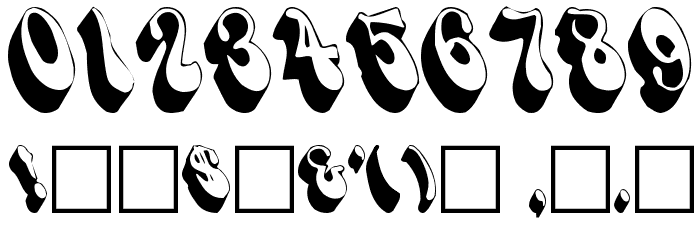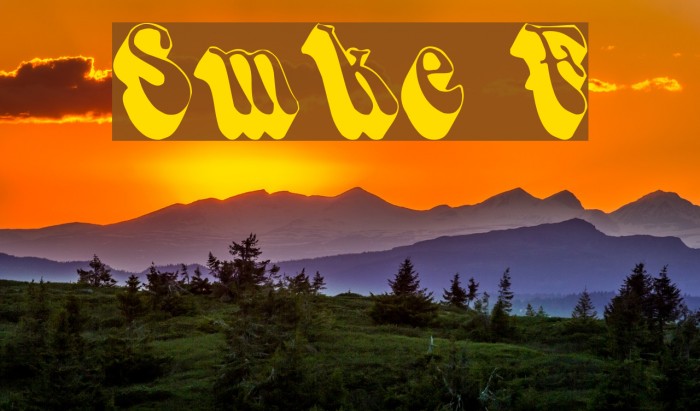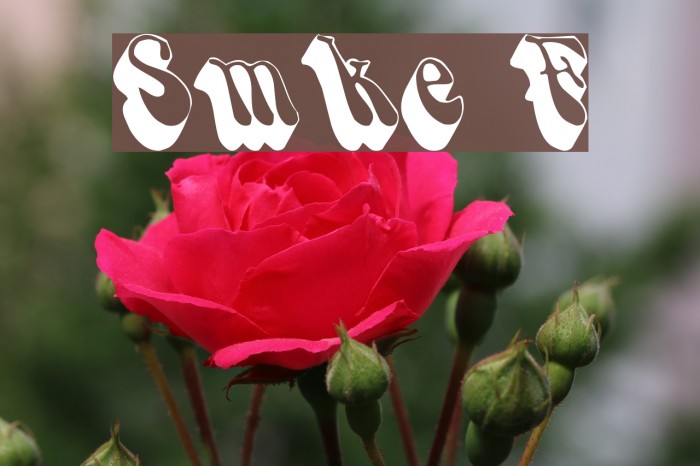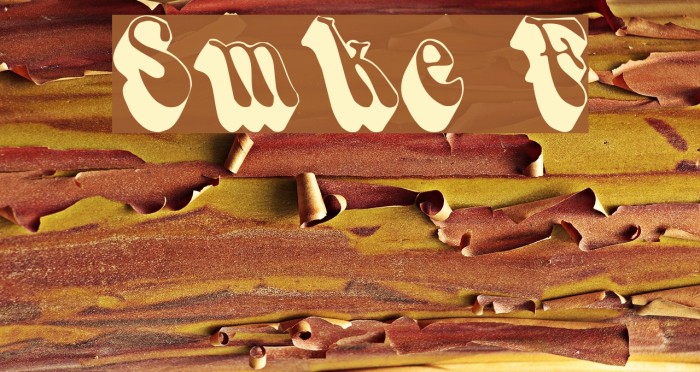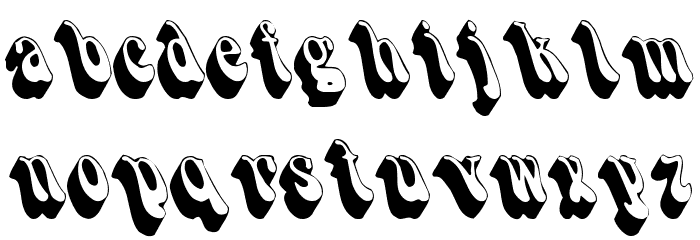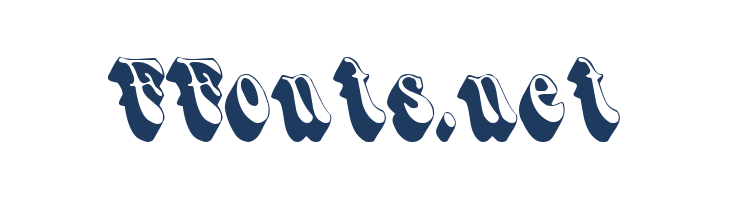
Smoke Font
Smoke Description
This font features a bold, three-dimensional style with a shadow effect that gives it a striking, impactful appearance. The letters are thick and rounded, with a playful, almost cartoonish quality. The uppercase and lowercase letters maintain a consistent style, with exaggerated curves and a sense of movement. The numbers and special characters follow the same design principles, ensuring a cohesive look across all elements. This font is ideal for creating eye-catching headlines or logos that need to stand out.
A bold, 3D font with a playful, shadowed style from 3D fonts.